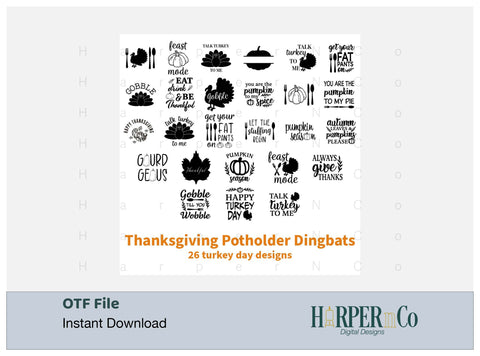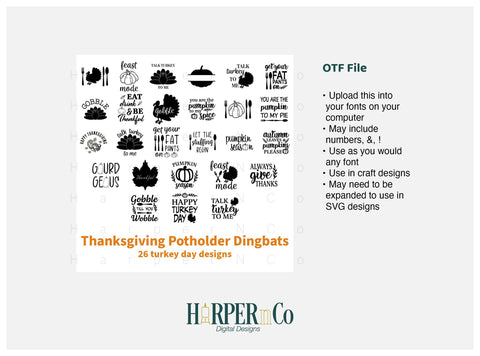
Thanksgiving Potholders Dingbat OvenMitt Font
Add a touch of whimsy to your Thanksgiving crafts with the Super Cute Hand Drawn Dingbat font. This unique OTF file font infuses an element of playfulness into your creative endeavors, making it the perfect choice for those looking to add personalized charm to their festive endeavors. From holiday cards to home decor, let your artistic side flourish this harvest season with this adorable, hand-crafted font. Crafted with heart and delivered with simplicity; the spirit of giving thanks in an oh-so-cute way.